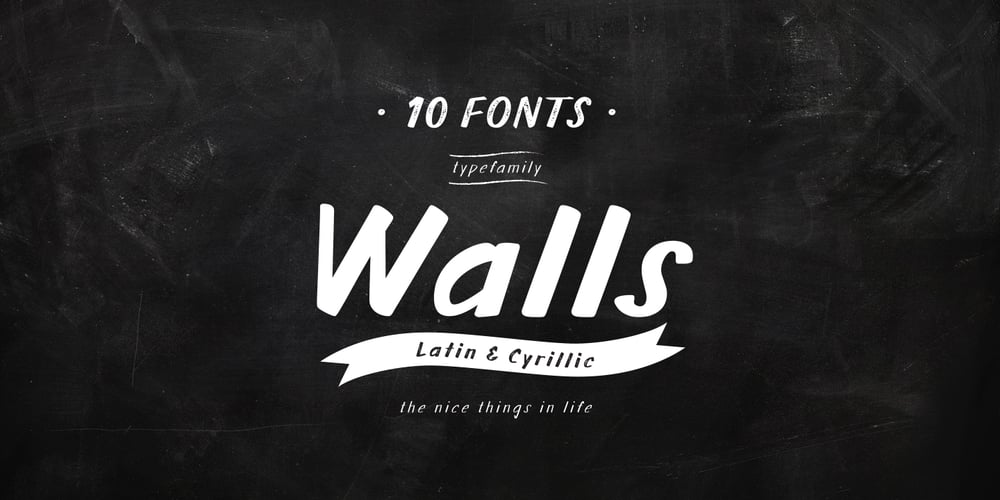
Walls
Walls font
Walls Font Family was designed by TypeType Team and published by Piñata. Walls contains 10 styles and family package options. What do you use to write a price tag at a store or to design a wall menu in a cafe? What to choose – a marker or chalk? Now it makes no more sense to be torn apart by the choice – use both techniques for your design. Walls fontfamily allows to perfectly combine an eco-friendly style with contemporary motives. Walls fontfamily supports over 70 languages and consists of 10 typefaces in 5 popular weights (Thin, Light, Regular, Bold, Black). Initially we wanted to create a font that would imitate an inscription made by a square tip marker which is usually used to write price tags at supermarkets, shops and cafes. During the working process we’ve decided to extend the conceptual boundaries of the Walls fontfamily and added 5 rough typefaces that imitate the style of ecologic chalk writing